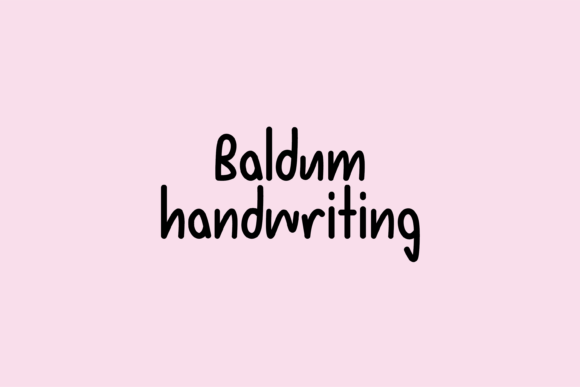
Baldum Font: The Simple yet Whimsical Handwritten Font for Your Creative Projects
Are you tired of using the same old fonts for your designs? Look no further than the Baldum font, a simple and friendly handwritten font that’s sure to brighten up your creative projects. With its whimsical and quirky style, Baldum is perfect for designers and crafters looking to add a touch of personality to their work.
What is Baldum Font?
Baldum is a handwritten font that’s designed to be both simple and elegant. Its clean lines and rounded edges give it a friendly and approachable feel, making it perfect for a wide range of design applications. Whether you’re creating a logo, wedding invitation, or social media graphic, Baldum is a versatile font that can help you achieve your design goals.
Characteristics of Baldum Font
So, what makes Baldum font so special? Here are just a few of its key characteristics:
- Simple and friendly: Baldum’s clean lines and simple shapes make it easy to read and understand.
- Whimsical and quirky: Despite its simplicity, Baldum has a playful and whimsical feel that’s perfect for designers who want to add some personality to their work.
- Handwritten: Baldum is a handwritten font, which gives it a personal and human touch.
- Versatile: Whether you’re creating a logo, invitation, or social media graphic, Baldum is a versatile font that can help you achieve your design goals.
Uses for Baldum Font
So, what can you use Baldum font for? The possibilities are endless! Here are just a few ideas to get you started:
- Logos: Baldum’s simple and elegant design makes it perfect for logos and branding materials.
- Wedding invitations: Add a touch of whimsy and romance to your wedding invitations with Baldum font.
- Quotes and posters: Baldum’s playful feel makes it perfect for quotes and posters.
- Advertisements: Use Baldum font to add a personal touch to your advertisements and marketing materials.
- Print and magazines: Baldum is a great font for print materials, including magazines, brochures, and flyers.
Why Choose Baldum Font?
So, why should you choose Baldum font for your next design project? Here are just a few reasons:
- Unique and creative: Baldum font is a unique and creative way to add some personality to your designs.
- Easy to read: Despite its playful feel, Baldum font is easy to read and understand.
- Versatile: Baldum font can be used for a wide range of design applications.
- High-quality: Baldum font is a high-quality font that’s designed to deliver great results.
Tips for Using Baldum Font
Here are a few tips for using Baldum font in your designs:
- Use it with confidence: Don’t be afraid to use Baldum font in your designs. Its simple and elegant design makes it perfect for a wide range of applications.
- Experiment with different sizes: Baldum font looks great in a variety of sizes, from small and delicate to large and bold.
- Pair it with other fonts: Baldum font pairs well with a variety of other fonts, so don’t be afraid to experiment with different combinations.
| Font Name | Baldum Font |
| Author | Woracado |
In conclusion, Baldum font is a simple and friendly handwritten font that’s perfect for designers and crafters looking to add a touch of personality to their work. With its whimsical and quirky style, Baldum is versatile and easy to use, making it perfect for a wide range of design applications. Whether you’re creating a logo, wedding invitation, or social media graphic, Baldum font is a great choice. So why not give it a try and see the results for yourself?